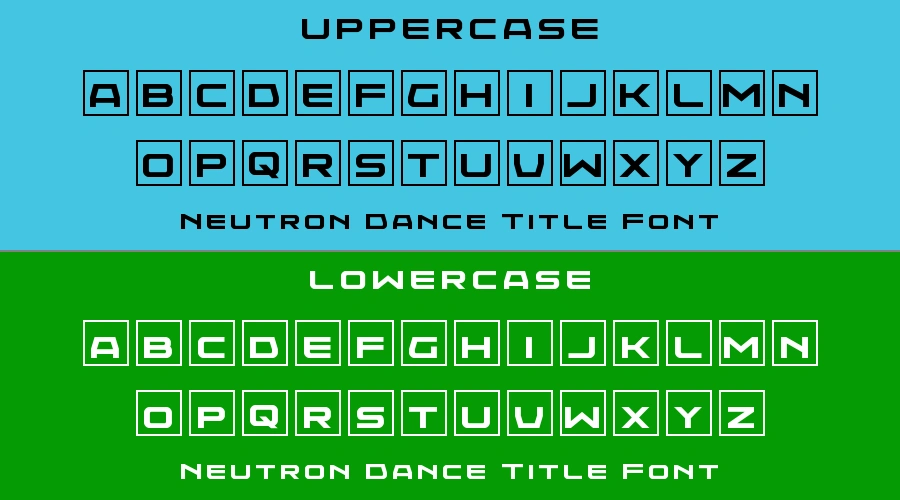
About Neutron Dance Title Font
Neutron Dance Title Font represents a sophisticated approach to type design, balancing artistic freedom with authenticity. Perfect for traditional magazines, this font family showcases impressive authenticity and reliability throughout its character set. Designers appreciate its versatility and reliability.
Designers will appreciate nuanced touches including confident strokes and pi characters, adding sophistication to any project. These features become apparent in artistic statements, where symbol integration matters most. The careful treatment of contrast level and design lineage ensures optimal performance.